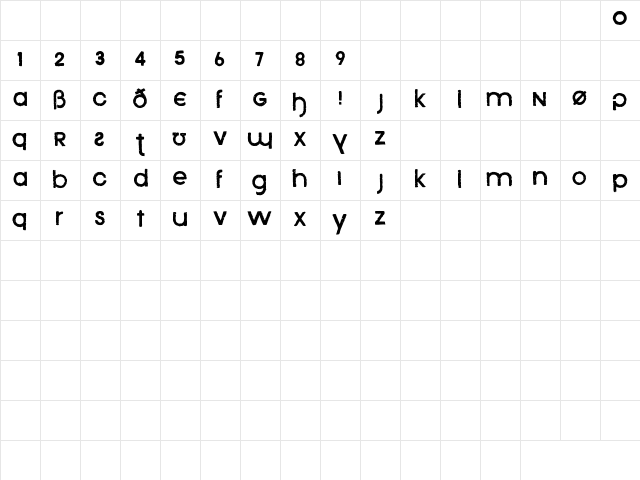
Xenophone Regular
Design Context for Xenophone Typeface
Xenophone takes a measured approach to typography — its balanced proportions and neutral character make it a reliable workhorse for both digital and print work.